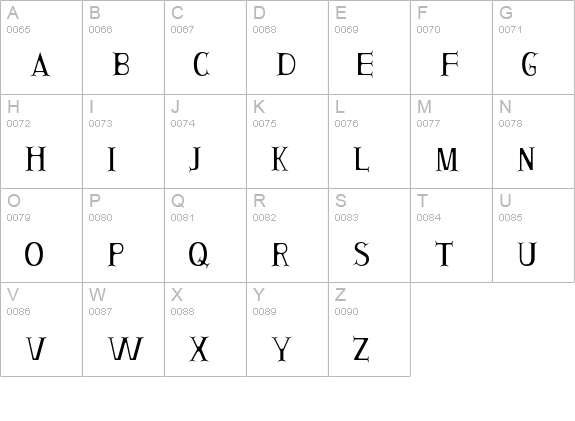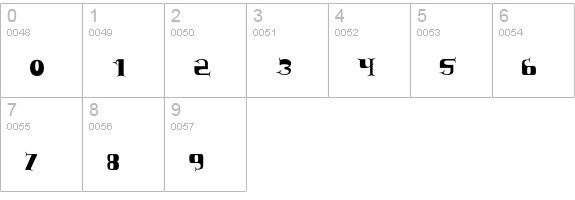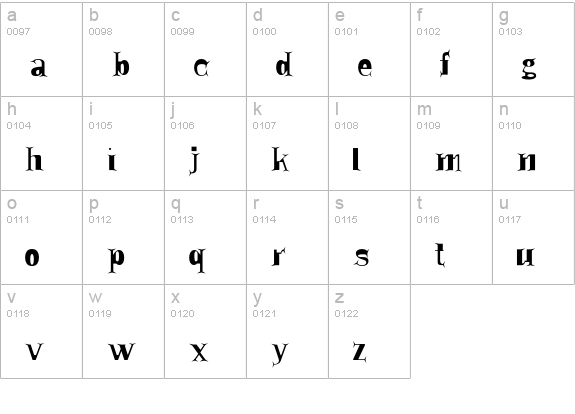
COLONIST Font Details
Introducing COLONIST font - a timeless and versatile typeface that exudes elegance and sophistication. With its clean lines and classic appeal, COLONIST is perfect for adding a touch of refinement to any design project. Whether you're creating elegant invitations, stylish branding materials, or eye-catching headlines, this font is sure to make a statement. What makes COLONIST even more appealing is that it is completely free to download at FontsMarket.com. Now you can elevate your designs without breaking the bank. So why wait? Download COLONIST today and add a touch of class to your next project.